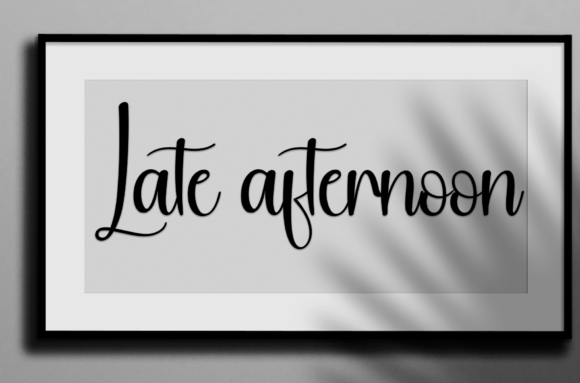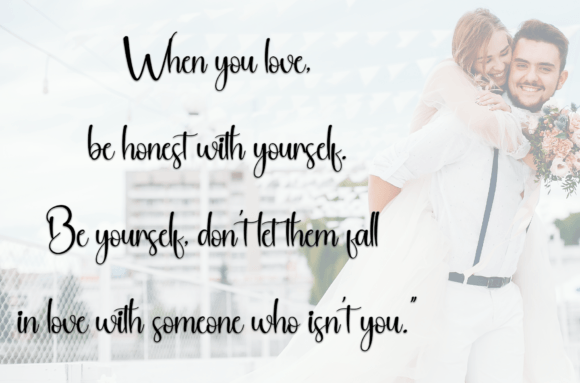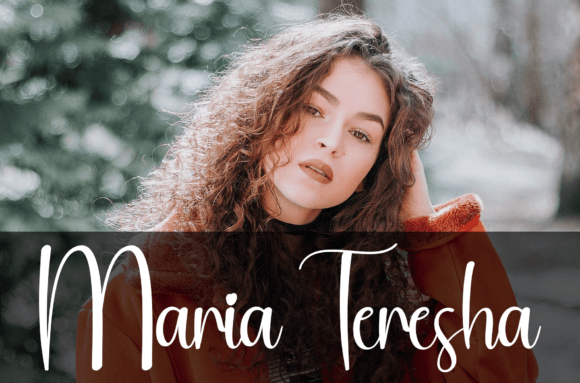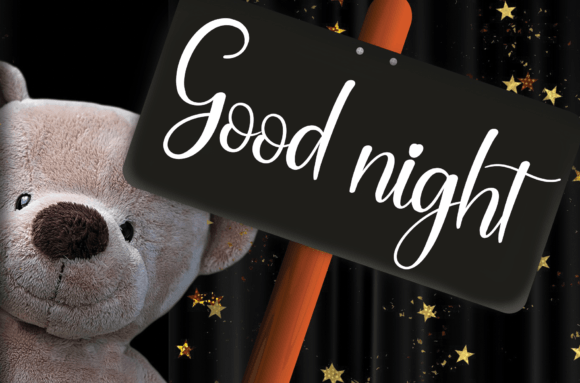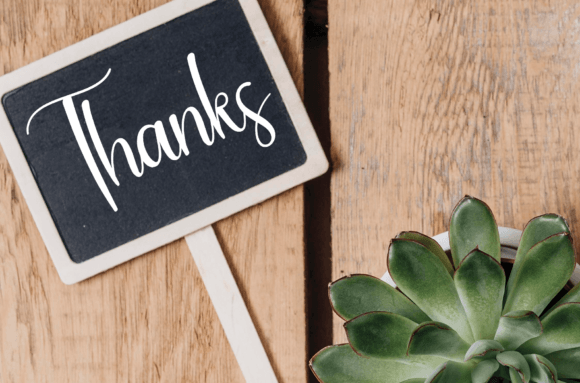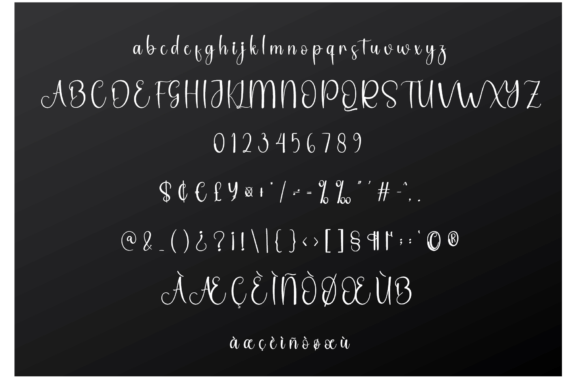
Vertical Font
About Vertical Font
Vertical is a sweet and friendly handwritten font designed to bring a warm and inviting feel to all your creative projects. Its playful and relaxed style makes it a wonderful choice for any design that deserves a touch of personality and charm. Whether you are crafting wedding invitations, greeting cards, or social media graphics, Vertical will help your words stand out with effortless beauty.
This font captures the essence of natural handwriting, with smooth curves and clean lines that feel both authentic and modern. Each character is thoughtfully crafted to create a sense of joy and approachability, making Vertical a font you’ll reach for again and again.
Perfect for Weddings and Special Occasions
Vertical is especially popular for designs that celebrate love and connection. You can use it to create:
• Wedding Invitations: Set a romantic tone with handwritten elegance.
• Save-the-Date Cards: Make a memorable first impression.
• Thank-You Notes: Express gratitude in a heartfelt way.
• Baby Showers: Announce special milestones with a personal touch.
• Birthday Celebrations: Add a joyful vibe to party invitations.
No matter the occasion, Vertical makes every message feel more sincere and special.
A Versatile Choice for Everyday Projects
This font isn’t limited to weddings—it also shines in everyday creative work. Vertical is ideal for:
• Logos and Branding: Give your brand a friendly, approachable look.
• Social Media Posts: Make quotes and captions feel more personal.
• Product Labels: Add a handmade feel to packaging.
• Wall Art: Turn inspiring words into beautiful prints.
• Crafting Projects: Perfect for Cricut, Silhouette, and DIY designs.
With its clean and legible letterforms, Vertical stays clear and attractive across all sizes and formats.
Why Designers Love Vertical
Here are just a few reasons why Vertical is a must-have font:
• Natural Handwritten Feel: Looks like authentic handwriting without sacrificing legibility.
• Friendly Personality: Makes any design feel warm and inviting.
• Smooth Connections: Letters flow beautifully for a cohesive look.
• Timeless Appeal: Suitable for modern, classic, or rustic styles.
• Highly Readable: Clean lines make it easy to read on screens and in print.
Creative Ideas to Get You Started
Looking for inspiration? Try these ideas with Vertical:
1. Pair with Serif Fonts: Create contrast and visual interest.
2. Use Bright Colors: Highlight the font’s playful nature.
3. Design Custom Gift Tags: Make every gift feel personal.
4. Create Journals and Planners: Add a touch of joy to everyday planning.
5. Design Brand Elements: Use it in logos, menus, or packaging for a cohesive look.
Vertical is ready to help you create designs that feel genuine, stylish, and unforgettable. From wedding invitations to product labels, this sweet handwritten font will bring warmth and personality to every project.